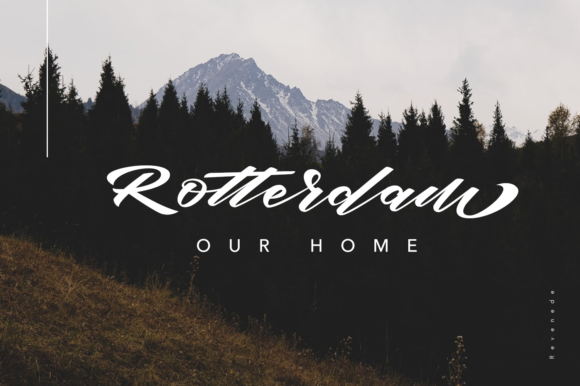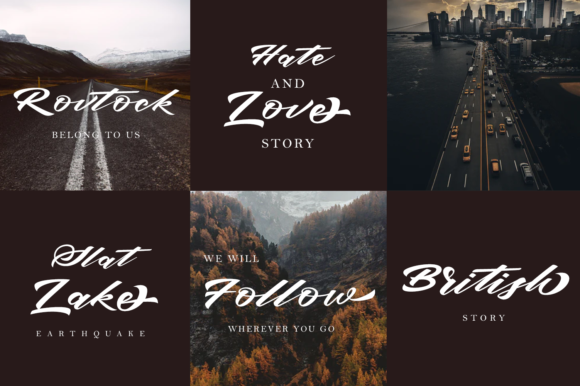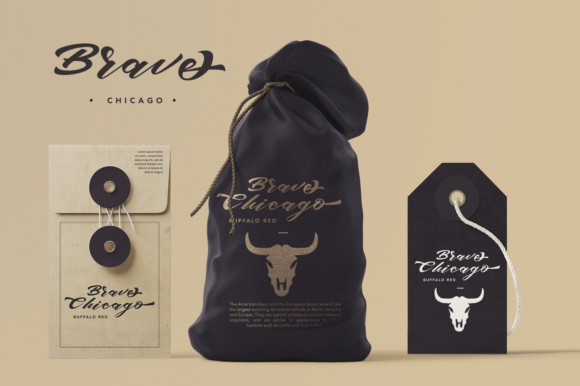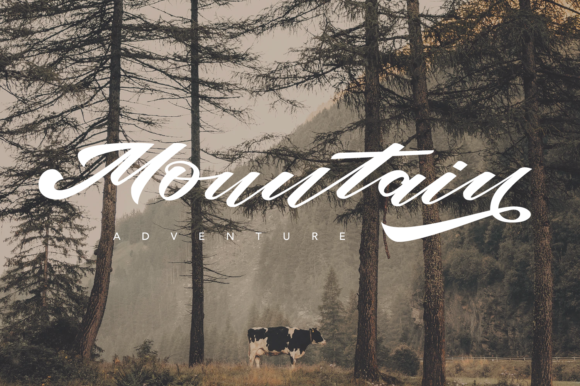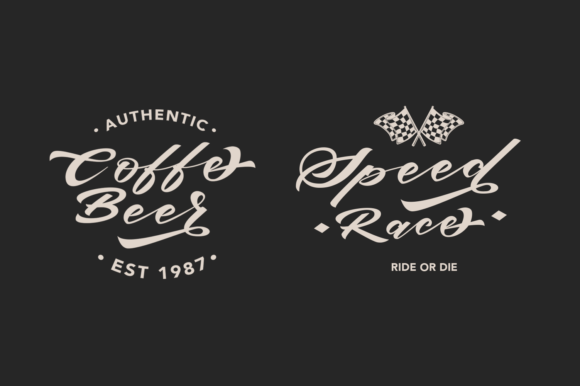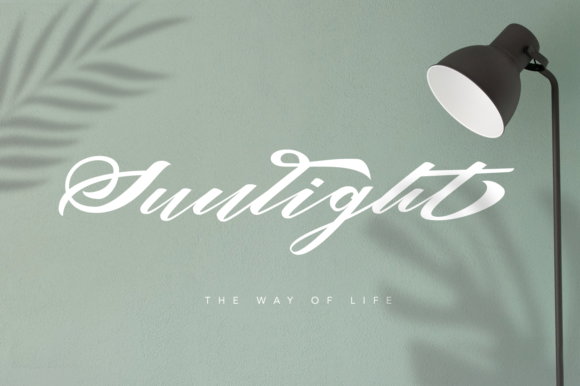
Brucke Font: Elevate Your Designs with Elegance and Style
Brucke is an elegant and stylish font that has been making waves in the design world. Get inspired by its modern style and take your creative projects to the next level! In this article, we’ll dive into the world of Brucke font, exploring its features, uses, and benefits for designers and crafters.
The Birth of Brucke Font
Brucke font is a relatively new addition to the typography scene, but it has quickly gained popularity among designers and crafters. Its modern style and elegant aesthetic have made it a go-to choice for projects that require a touch of sophistication. Whether you’re working on a branding project, a wedding invitation, or a craft project, Brucke font is sure to impress.
What Makes Brucke Font Special?
So, what sets Brucke font apart from other fonts? Here are a few key features that make it stand out:
- Elegant and Stylish: Brucke font boasts a sleek and modern design that exudes elegance and sophistication.
- Versatile: Brucke font is highly versatile and can be used for a wide range of projects, from branding and advertising to wedding invitations and crafting.
- High-Quality: Brucke font is a high-quality font that is designed to deliver crisp and clear results, even at small sizes.
Using Brucke Font in Your Designs
Brucke font is incredibly easy to use and can be incorporated into your designs in a variety of ways. Here are a few ideas to get you started:
- Branding and Logo Design: Use Brucke font to create a sophisticated and modern brand identity that will help your business stand out.
- Wedding Invitations: Add a touch of elegance to your wedding invitations with Brucke font, perfect for formal and semi-formal events.
- Crafting and Scrapbooking: Brucke font is a great addition to any craft project, from scrapbooking to card making.
Tips and Tricks for Working with Brucke Font
Here are a few tips and tricks to help you get the most out of Brucke font:
- Pair it with Other Fonts: Brucke font pairs well with a variety of other fonts, so don’t be afraid to experiment and find the perfect combination for your project.
- Use it in Headings and Titles: Brucke font is perfect for headings and titles, where its elegant and stylish aesthetic can really shine.
- Experiment with Colors: Brucke font looks great in a variety of colors, so don’t be afraid to experiment and find the perfect hue for your project.
Brucke font is an elegant and stylish font that is sure to elevate your designs and take your creative projects to the next level. With its modern style, versatility, and high-quality design, Brucke font is a great choice for designers and crafters alike. Whether you’re working on a branding project, a wedding invitation, or a craft project, Brucke font is sure to impress.